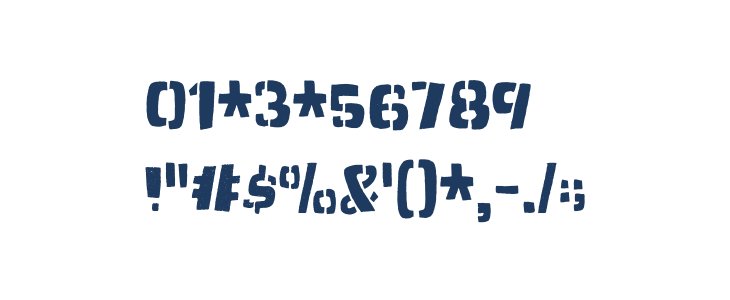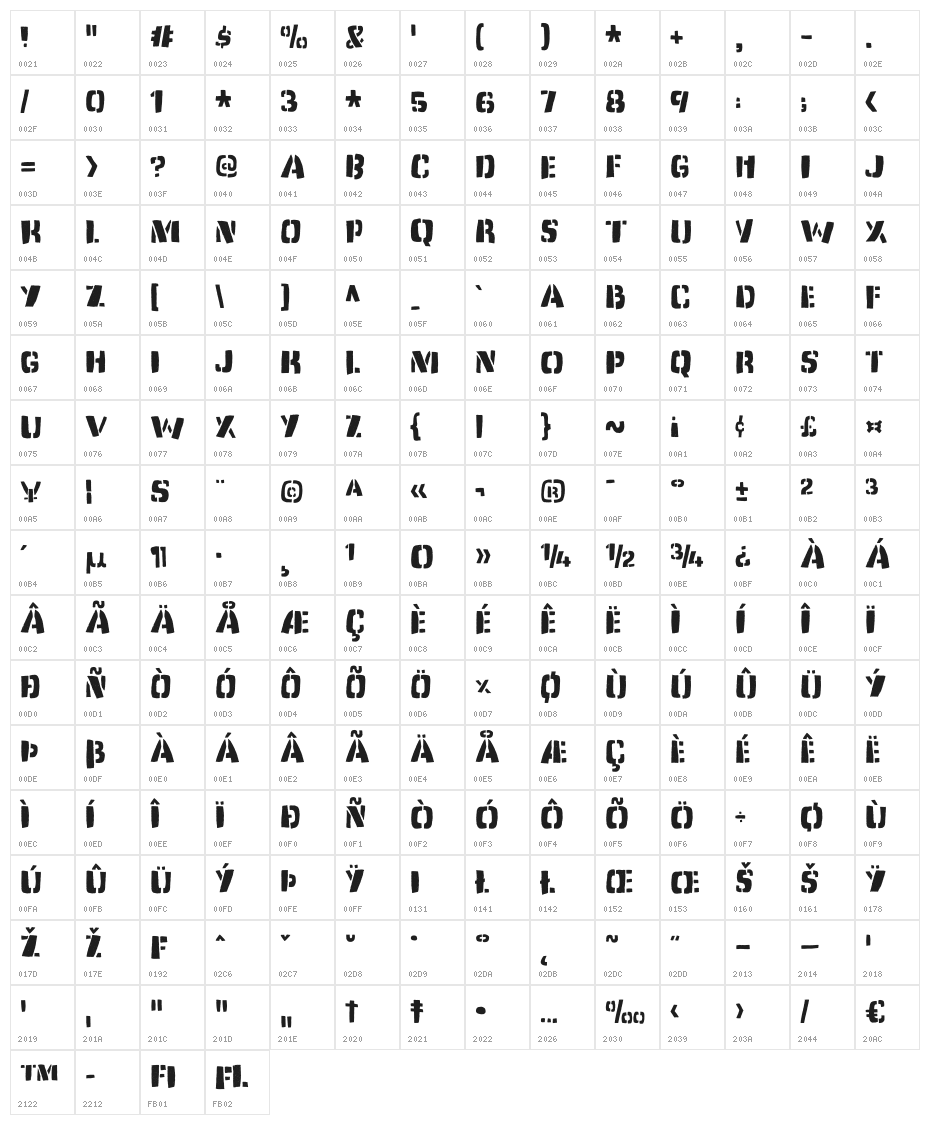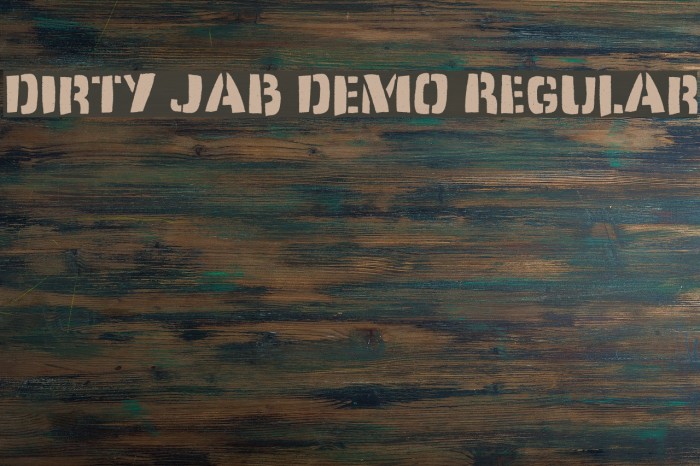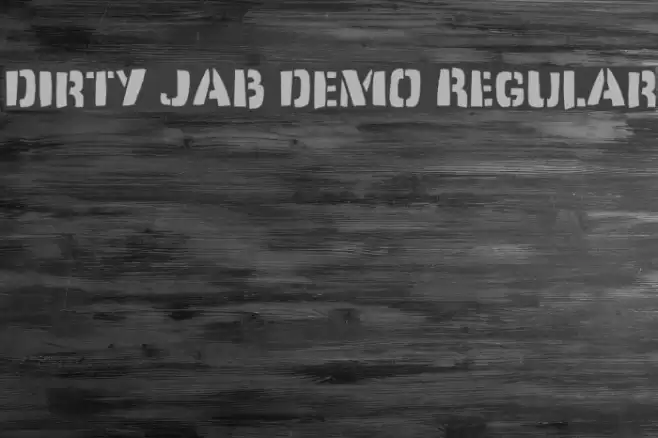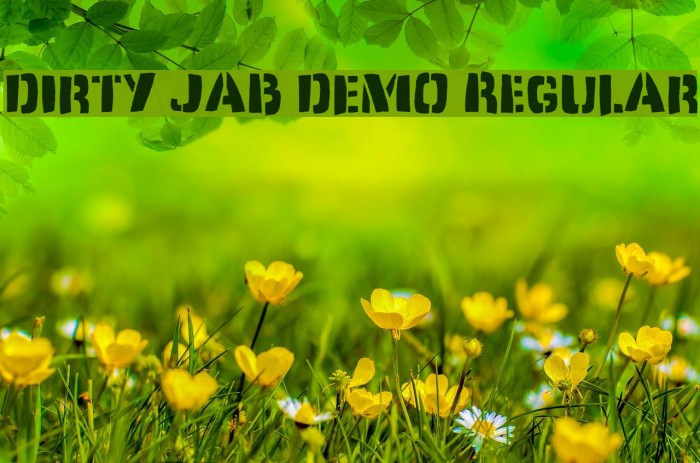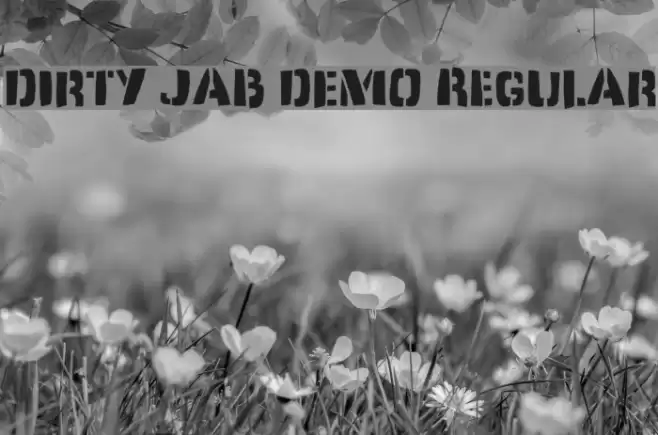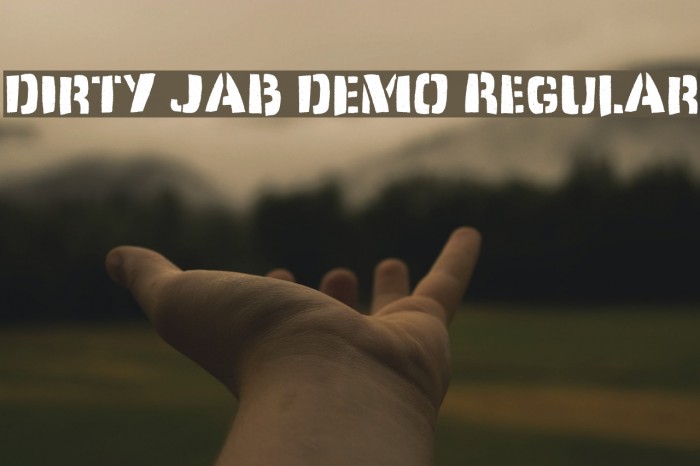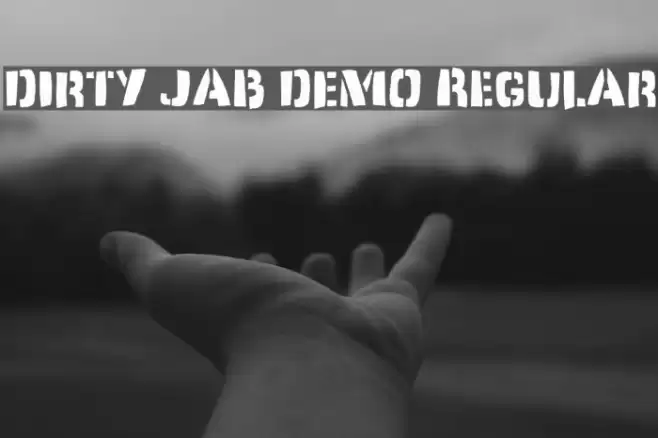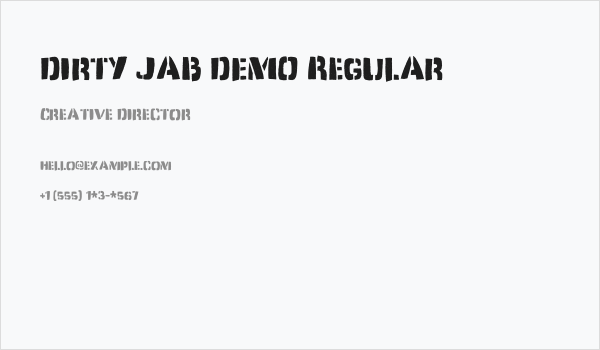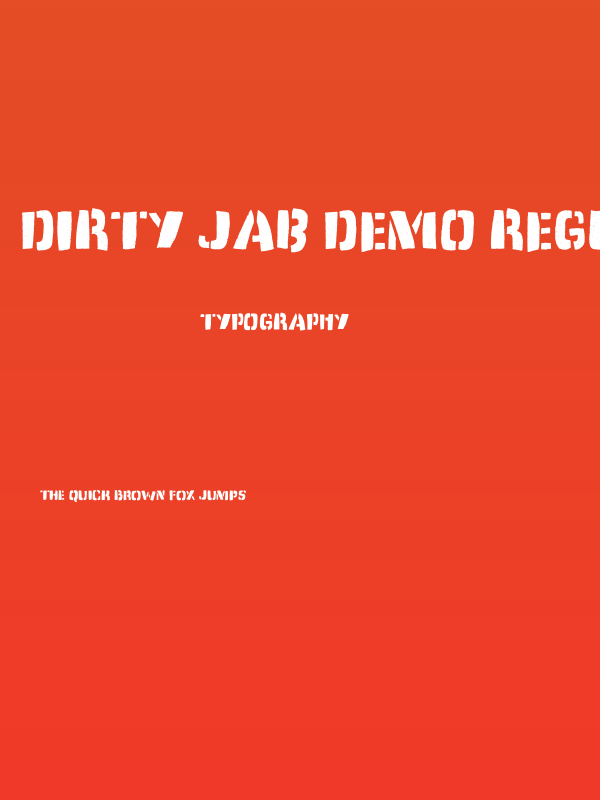
Dirty Jab DEMO Regular Font
Dirty Jab DEMO Regular Description
This font features a bold, stencil-like appearance with a rugged and distressed texture, giving it a gritty, urban feel. The characters are all uppercase, with a consistent height and width, creating a uniform look. The edges are rough and uneven, adding to the font's industrial and edgy style. The numbers and special characters follow the same design principles, ensuring a cohesive visual identity. This font is ideal for projects that require a strong, impactful statement, such as posters, album covers, or branding for edgy or alternative products.
| Overall Style | Urban, Industrial |
| Proposed Projects | Ideal for posters, album covers, and edgy branding projects. |